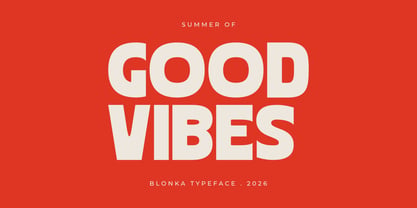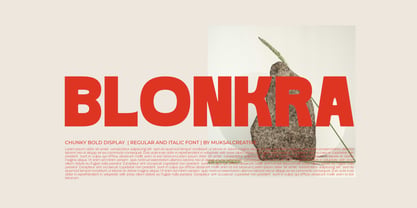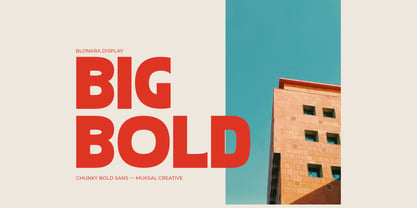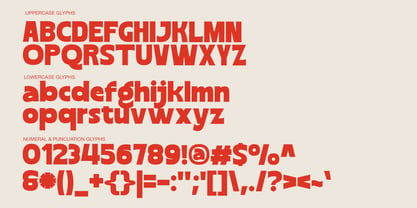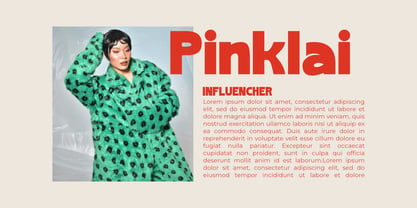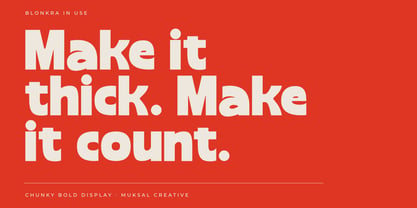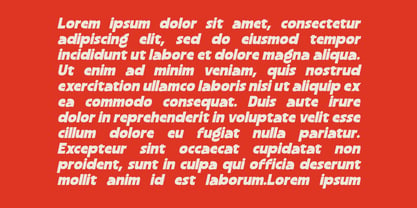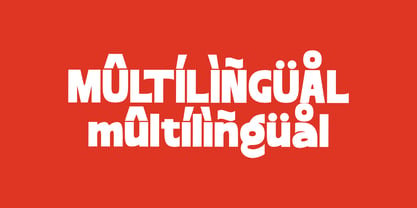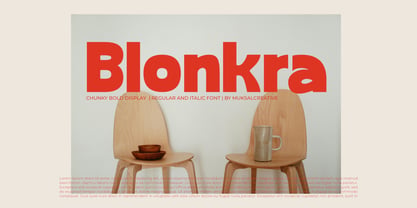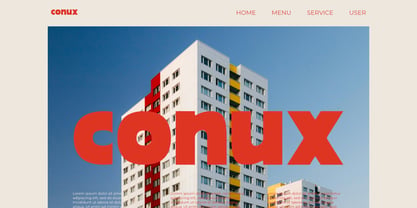
Blonkra
by Muksal Creatives
The Blonkra Font Family was designed by Muksalmina and published by Muksal Creatives. Blonkra contains 2 styles and family package options. More about this family
Blonkra is a chunky bold display sans-serif typeface designed with thick uniform strokes, rounded terminals, and bouncy organic curves. This typeface delivers a warm, energetic, and retro look, making it ideal for food branding, poster design, logo typography, and digital headlines. Carefully crafted with a high x-height and full rounded letterforms, Blonkra brings a strong retro character to brand identities, product labels, social media compositions, and editorial headlines. Multilingual support included for wide international use.
Designers: Muksalmina
Foundry: Muksal Creatives